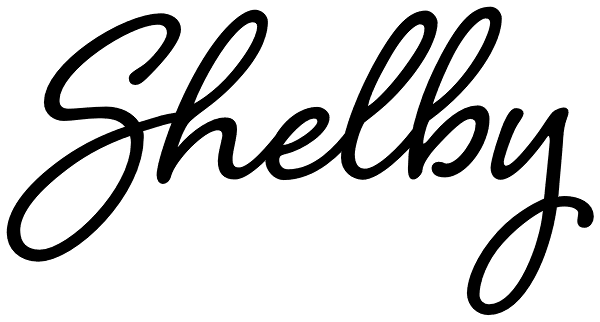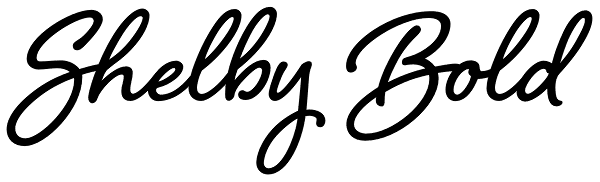
Shelby
Shelby is a monoline, semi-connected script typeface based on hand lettering created with a Speedball ‘B’ metal nib. It has a natural appearance of handwriting, yet its style yields enough strength to be used for a variety of purposes – such as...